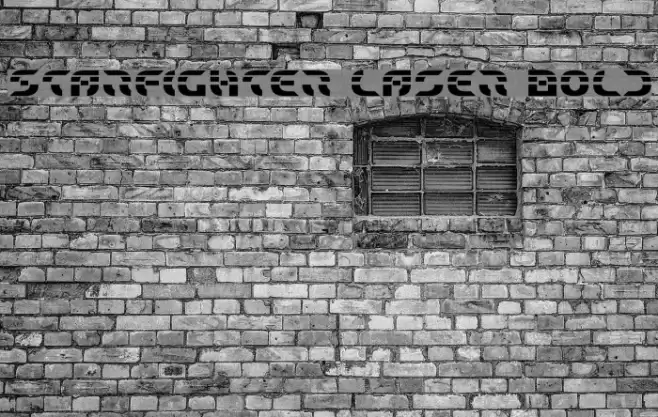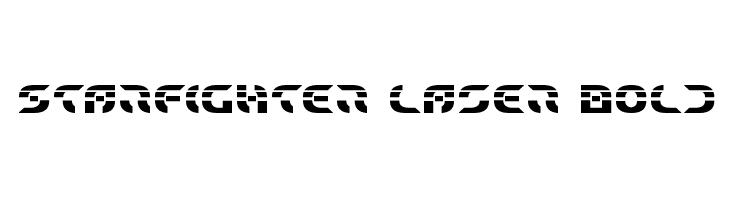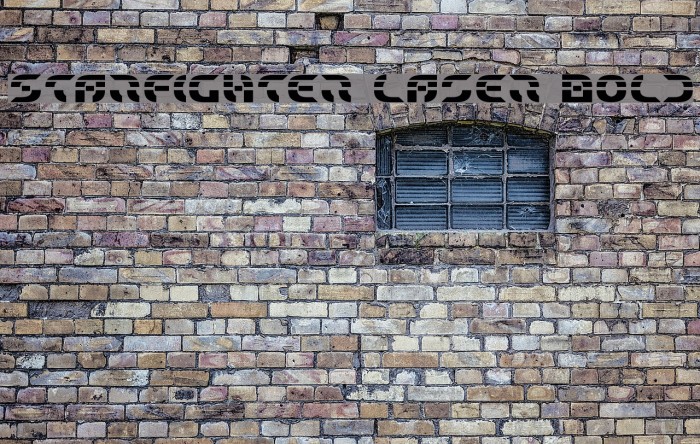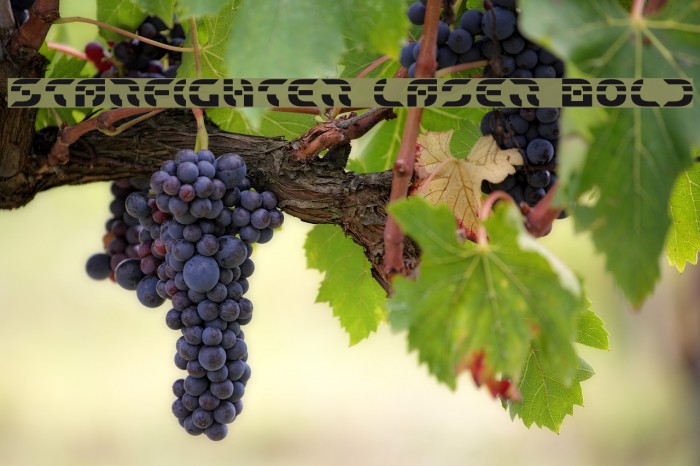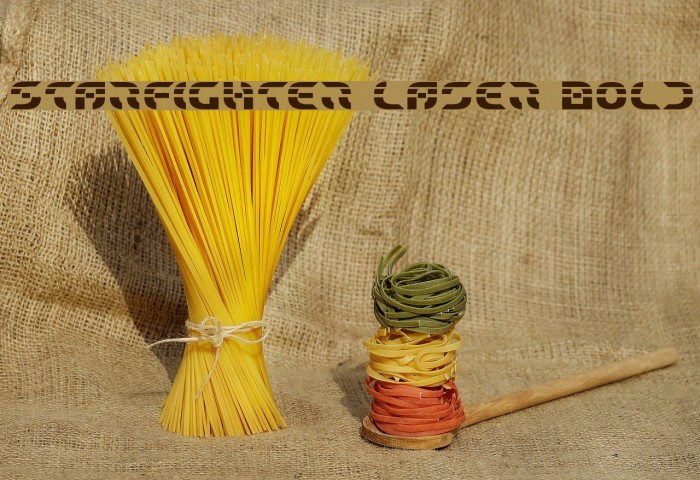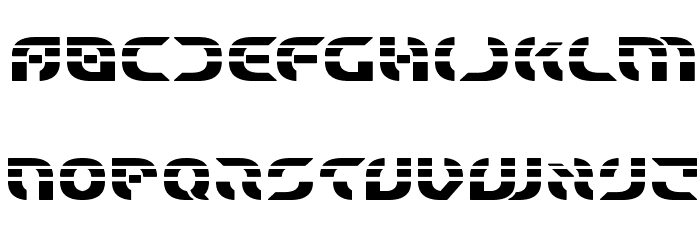
Starfighter Laser Bold Font
Starfighter Laser Bold Description
This font features a futuristic and bold design, characterized by its geometric shapes and sharp angles. The letters are constructed with a series of parallel lines and cut-out sections, giving it a high-tech, digital appearance. The uppercase and lowercase letters maintain a consistent style, with a strong emphasis on horizontal lines and symmetrical forms. The numbers and special characters follow the same design principles, ensuring a cohesive look across all glyphs. This font is ideal for projects that require a modern, sci-fi aesthetic.
A futuristic, bold font with geometric shapes and sharp angles from Sci-fi fonts.
- Proposed Projects: Perfect for sci-fi movie posters, video game titles, tech branding, and futuristic-themed events.